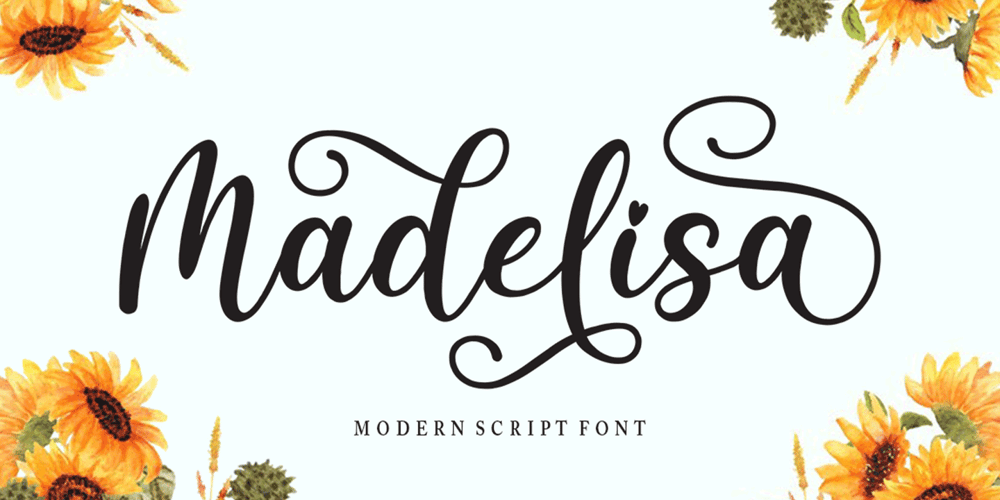
Madelisa Script
Madelisa Script font
Madelisa Script Font Family was designed by Mu Fazzal and published by Bosstypestudio. Madelisa Script contains 1 styles and family package options. Madelisa Script is a Chic and Lovely Calligraphy font, described by a Love touch with natural handwritten style, perfect for your favorite projects.Fall in love with its incredibly distinct and timeless style and use it to create spectacular designs!What’s Include :Multilingual SupportThank You,